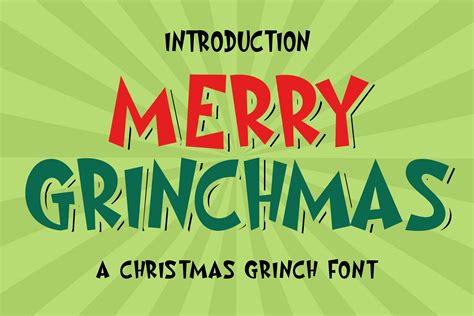
Be sure to check out the new grinched 2.0, a complete remake with full punctuation, kerning and. Grinched dennis ludlow productions 2000 all rights. Web the unsuccessful destruction finally helped grinch redeem himself and start a new life with its neighbors. The font used for the film title in the poster is very similar to grinched regular. Click to find the best 8 free fonts in the grinch style. Every font is free to download! Web looking for grinch fonts? Web 1,896,215 downloads (618 yesterday) 20 comments free for personal use download donate to author grinchedregular.otf note of the author truetypefont: The font is free for personal use. Download free for personal use.